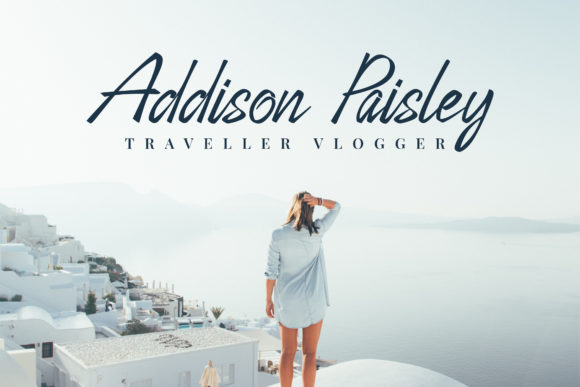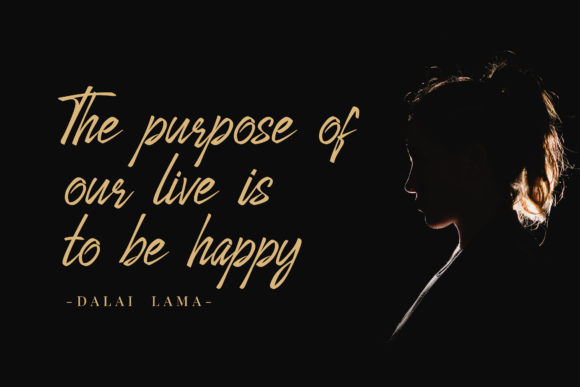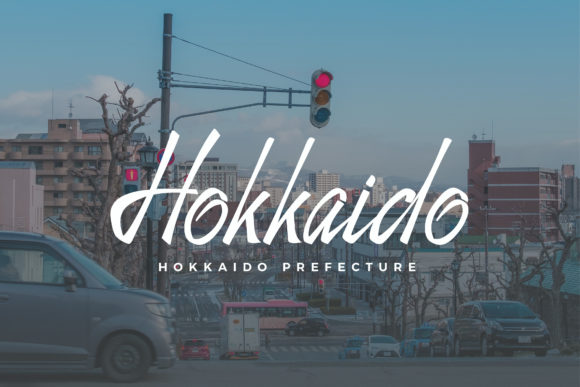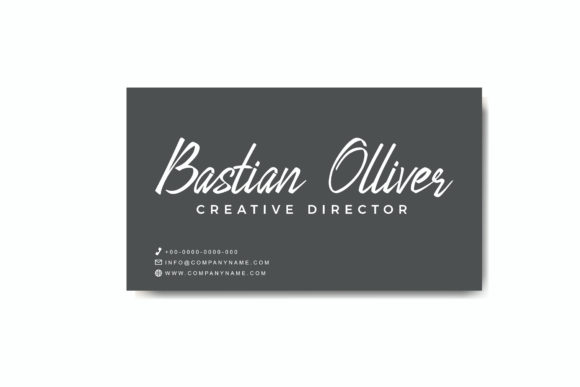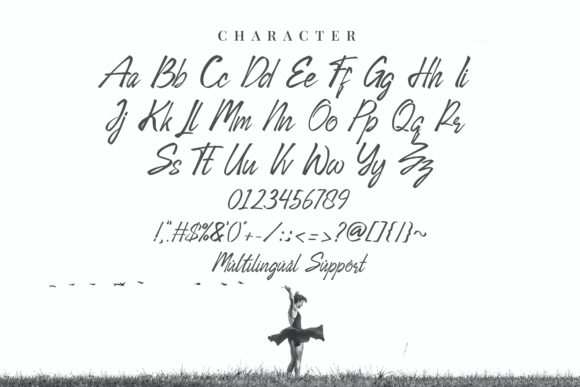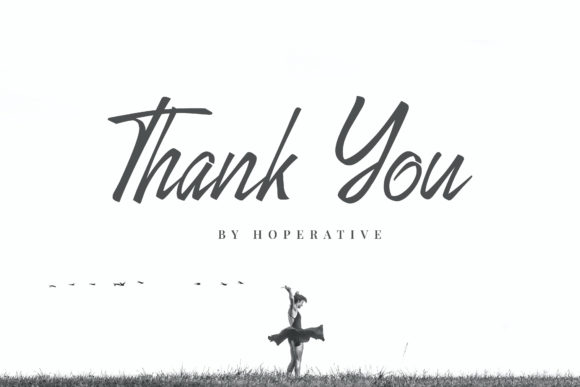
Bellati Blood Font: A Sweet and Cursive Handwritten Font for Your Design Projects
Are you looking for a font that can add a touch of sweetness and romance to your design projects? Look no further than the Bellati Blood font! This beautiful, cursive handwritten font is perfect for a variety of design ideas and is sure to bring a joyful and romantic feel to each of your projects.
What is Bellati Blood Font?
Bellati Blood is a sweet and cursive handwritten font that is designed to add a personal touch to your designs. The font features beautiful, flowing script letters that are perfect for creating elegant and sophisticated designs. The font is highly legible and can be used for a variety of design projects, including wedding invitations, branding, packaging, and more.
Key Features of Bellati Blood Font
- Sweet and Cursive Handwritten Style: The Bellati Blood font features a beautiful, cursive handwritten style that is perfect for creating elegant and sophisticated designs.
- Highly Legible: The font is highly legible, making it perfect for use in a variety of design projects, including body text and headings.
- Versatile: The Bellati Blood font is highly versatile and can be used for a variety of design projects, including wedding invitations, branding, packaging, and more.
Design Ideas Using Bellati Blood Font
The Bellati Blood font is perfect for a variety of design ideas, including:
- Wedding Invitations: The font is perfect for creating beautiful and elegant wedding invitations that will set the tone for your special day.
- Branding: The font can be used to create a unique and memorable brand identity that will help you stand out from the competition.
- Packaging: The font can be used to create beautiful and eye-catching packaging that will help your product stand out on store shelves.
- Social Media Graphics: The font can be used to create beautiful and engaging social media graphics that will help you connect with your audience.
Tips for Using Bellati Blood Font
Here are a few tips for using the Bellati Blood font in your design projects:
- Use it as a Headline Font: The font is perfect for use as a headline font, where it can add a touch of elegance and sophistication to your design.
- Pair it with a Sans Serif Font: The font pairs well with sans serif fonts, such as Arial or Helvetica, which can be used for body text.
- Experiment with Colors: The font looks great in a variety of colors, so don’t be afraid to experiment and find the perfect color for your design.
In conclusion, the Bellati Blood font is a beautiful and versatile font that is perfect for a variety of design projects. Its sweet and cursive handwritten style makes it perfect for adding a touch of elegance and sophistication to your designs. With its highly legible and easy-to-use features, it’s a great choice for designers and crafters alike.
Whether you’re looking to create a beautiful wedding invitation, a unique brand identity, or eye-catching packaging, the Bellati Blood font is sure to bring a joyful and romantic touch to each of your projects. So why not give it a try and see the difference it can make in your designs?